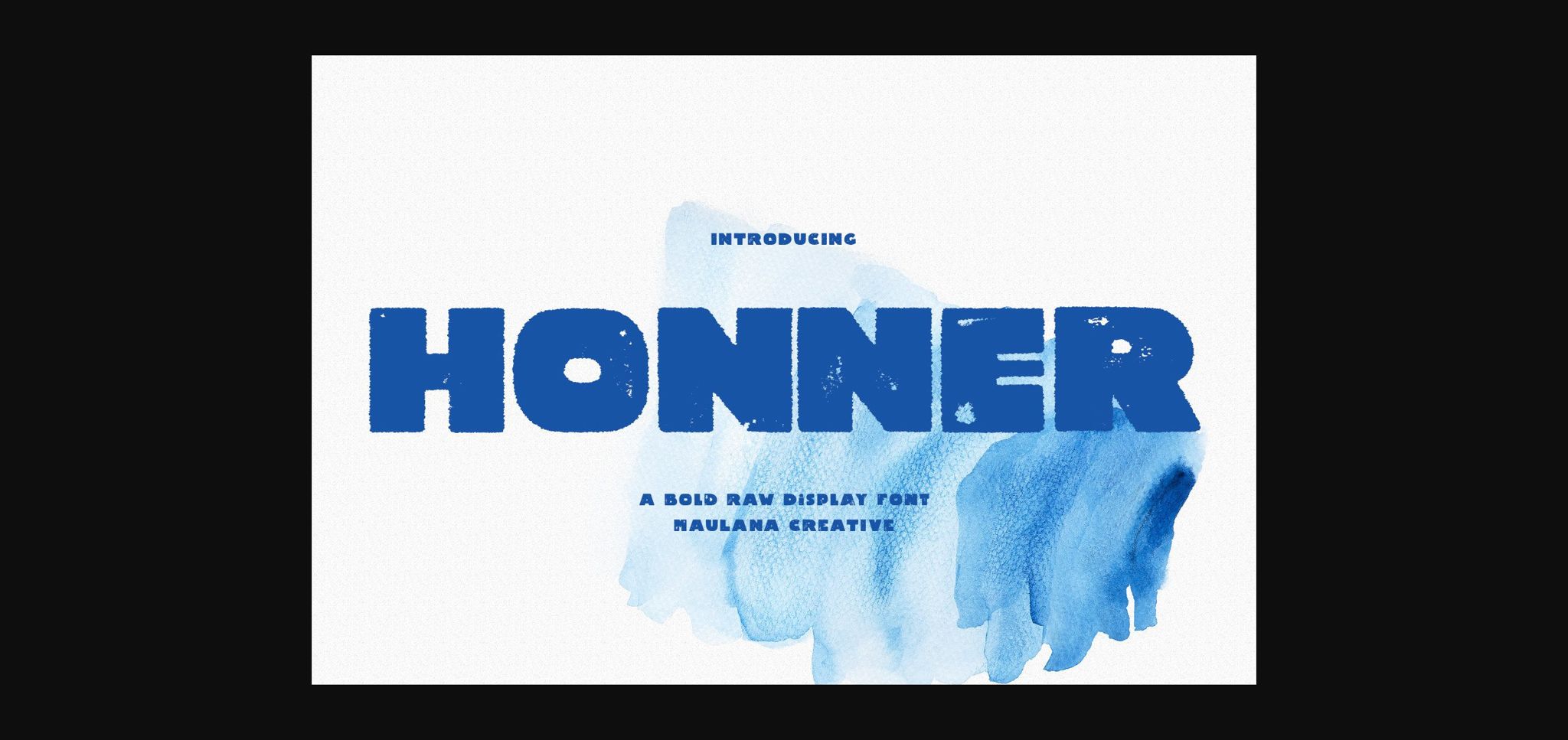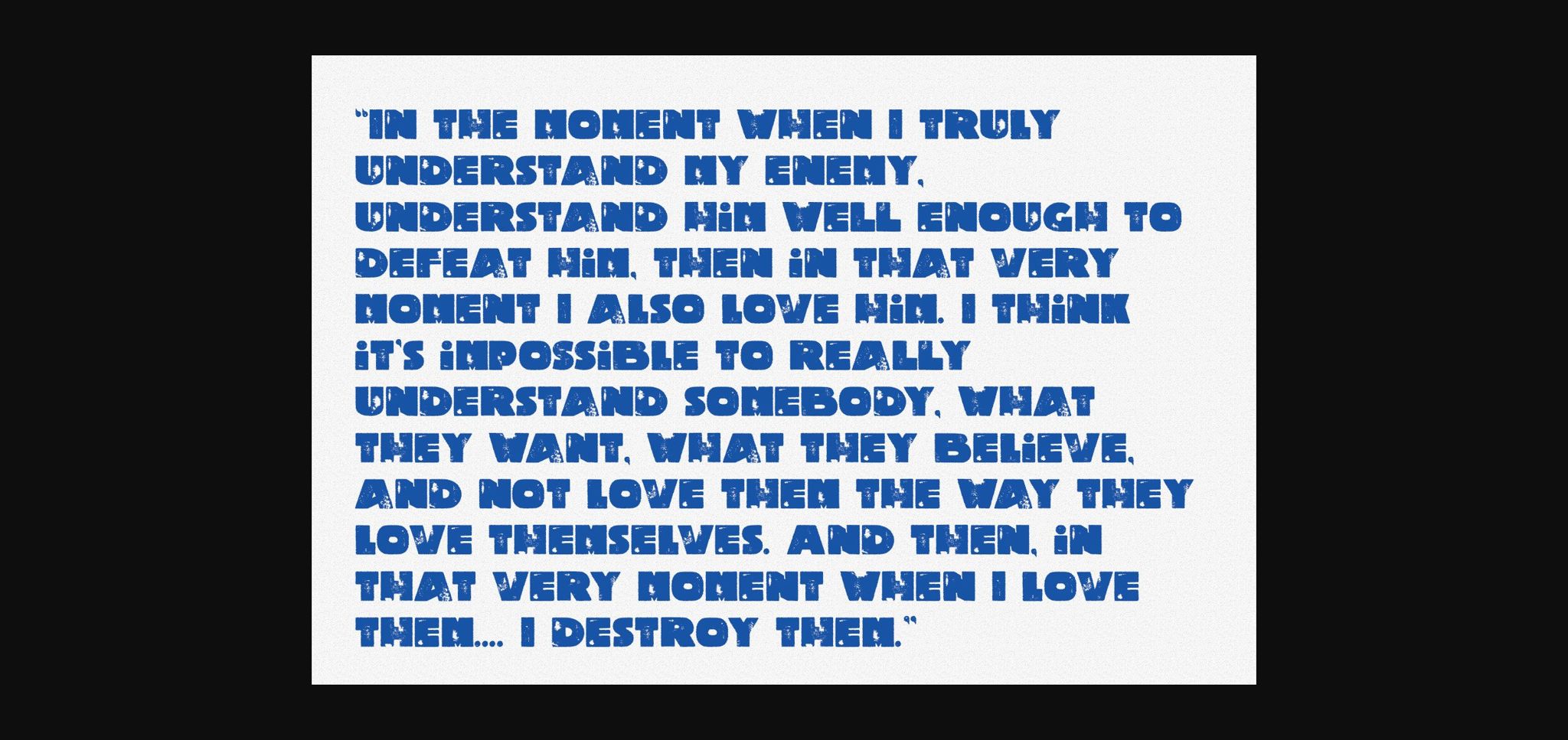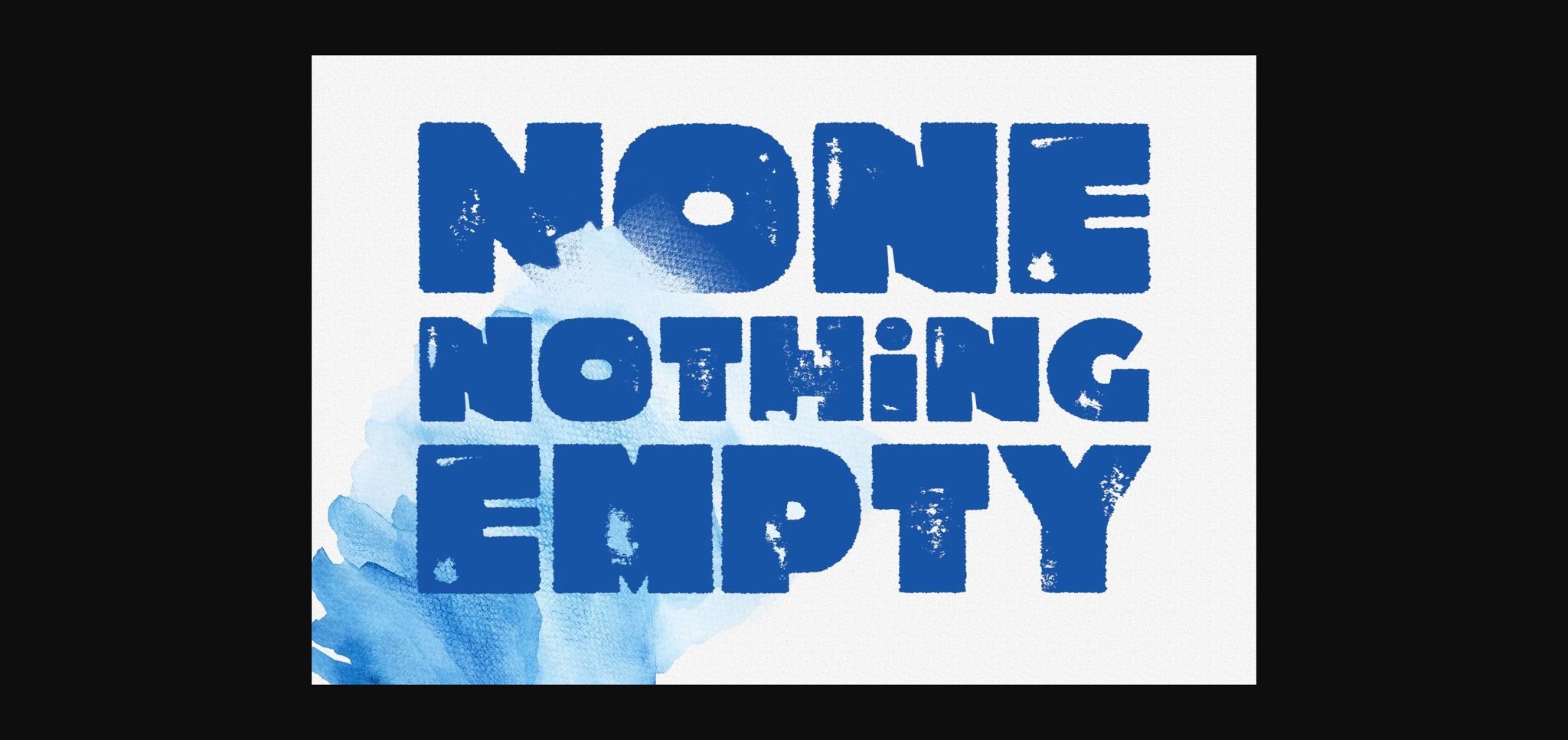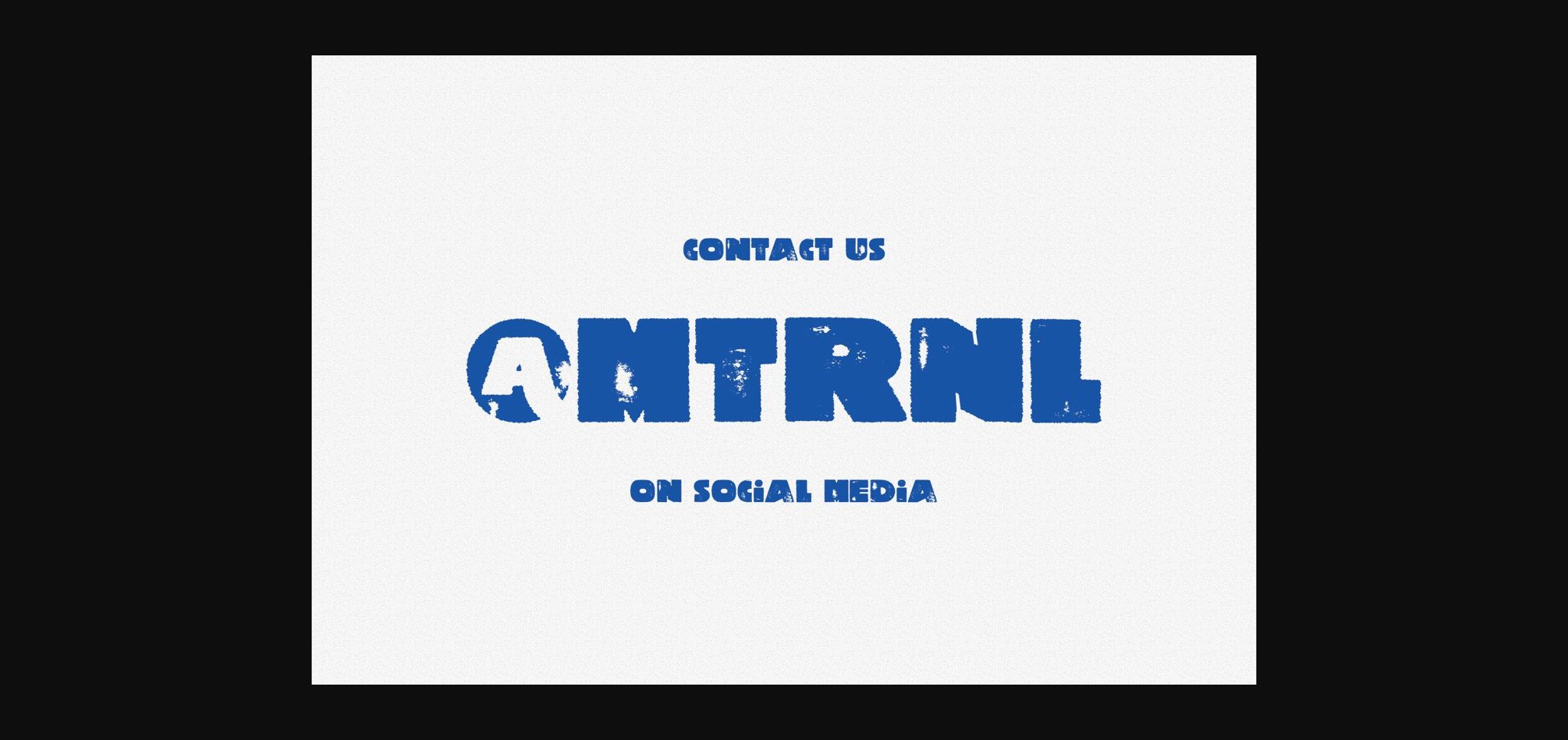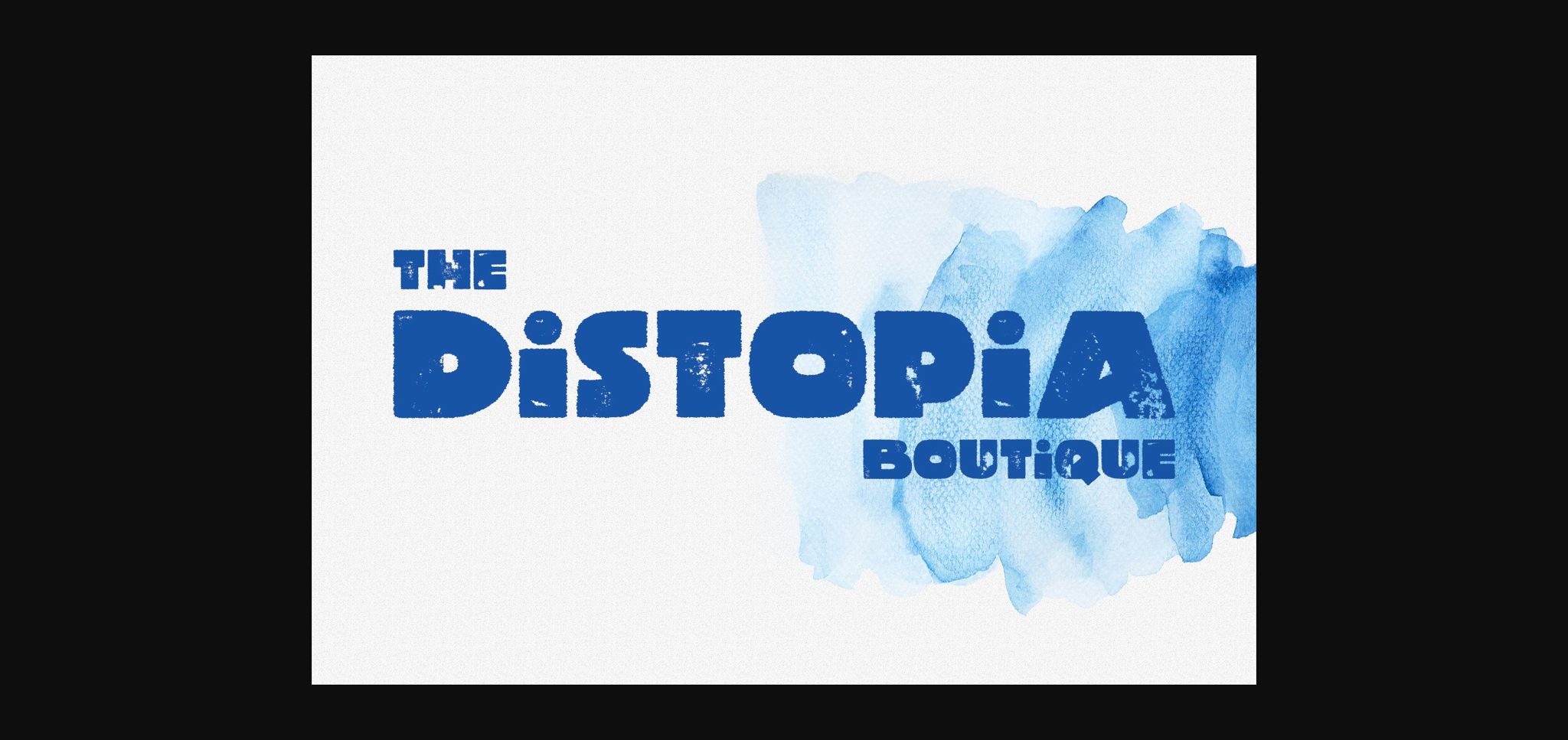
Honner Font
About Honner Font
Honner is a stamp distressed sans serif display font. This font reads as strong, confident, and dynamic and can add tons of nostalgic character to your designs.